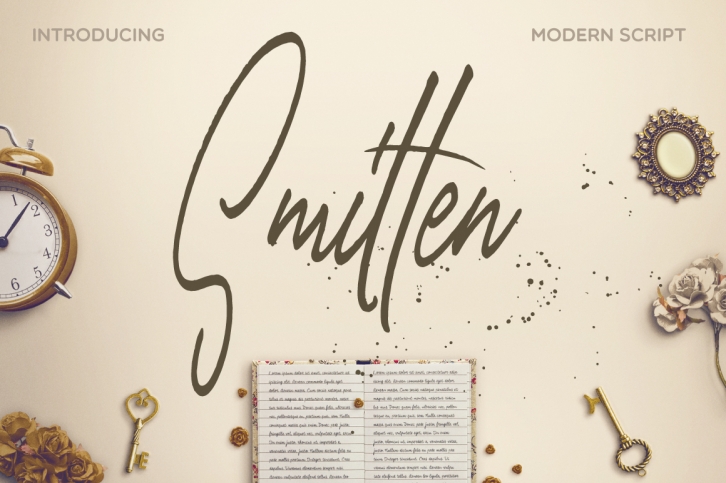
Smitten Script is a trendy and unique font with an authentic style. It was designed by Mellow Design Lab and it's a great choice for creative people who need such a font. It was released on May 23, 2016 and the file size is 7.25 MB. Smitten Script will add an organic vibe to any design idea!